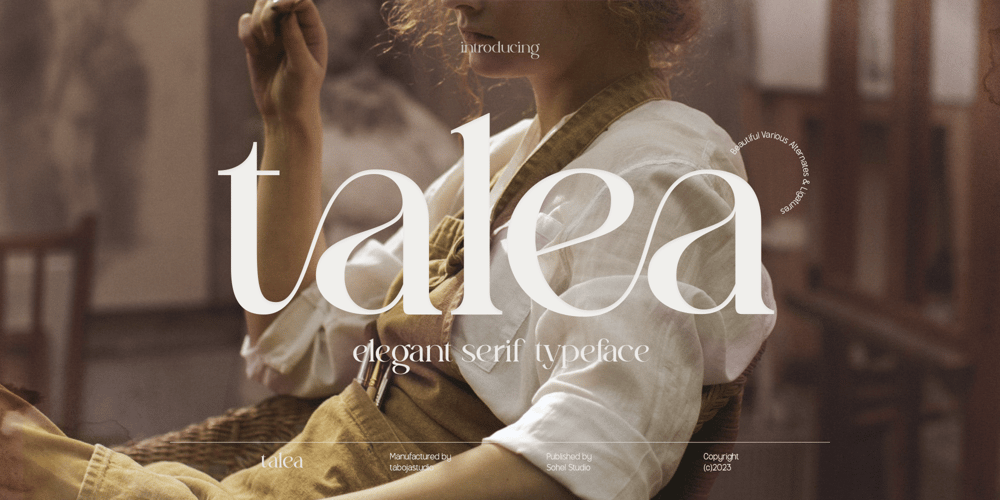
Talea Elegant Serif Font Family was designed by Yusilo Oktaprima Ardani and published by Taboja Studio. Talea Elegant Serif contains 1 styles and family package options. Talea Serif Font Designed for versatility, our Elegant Display Serif Font is a sophisticated choice for a myriad of design projects. The judicious use of thick and thin strokes imparts a timeless elegance, making it ideal for branding, editorial layouts, and various creative endeavors.Elevate your designs with the multitude of possibilities provided by our Elegant Display Serif Font. Its meticulous design, exquisite swash alternates, and diverse ligatures make it the perfect companion for a wide range of creative projects, ensuring your work radiates sophistication and charm.Talea Serif Font Features: Regular Uppercase And Lowercase Alternates And Ligatures Numerals & Punctuation Accented characters Multilingual Support Unicode PUA Encoded We highly recommend using a program that supports OpenType features and Glyphs panels such as Adobe Illustrator, Adobe Photoshop CC, Adobe Indesign, or CorelDraw, so you can see and access all Glyph variations.While using this product, if you encounter any problem or spot something we may have missed, please don’t hesitate to drop us a message. We’d love to hear your feedbacks in order to further fine-tune our products.Stay creative and have a wonderful day.